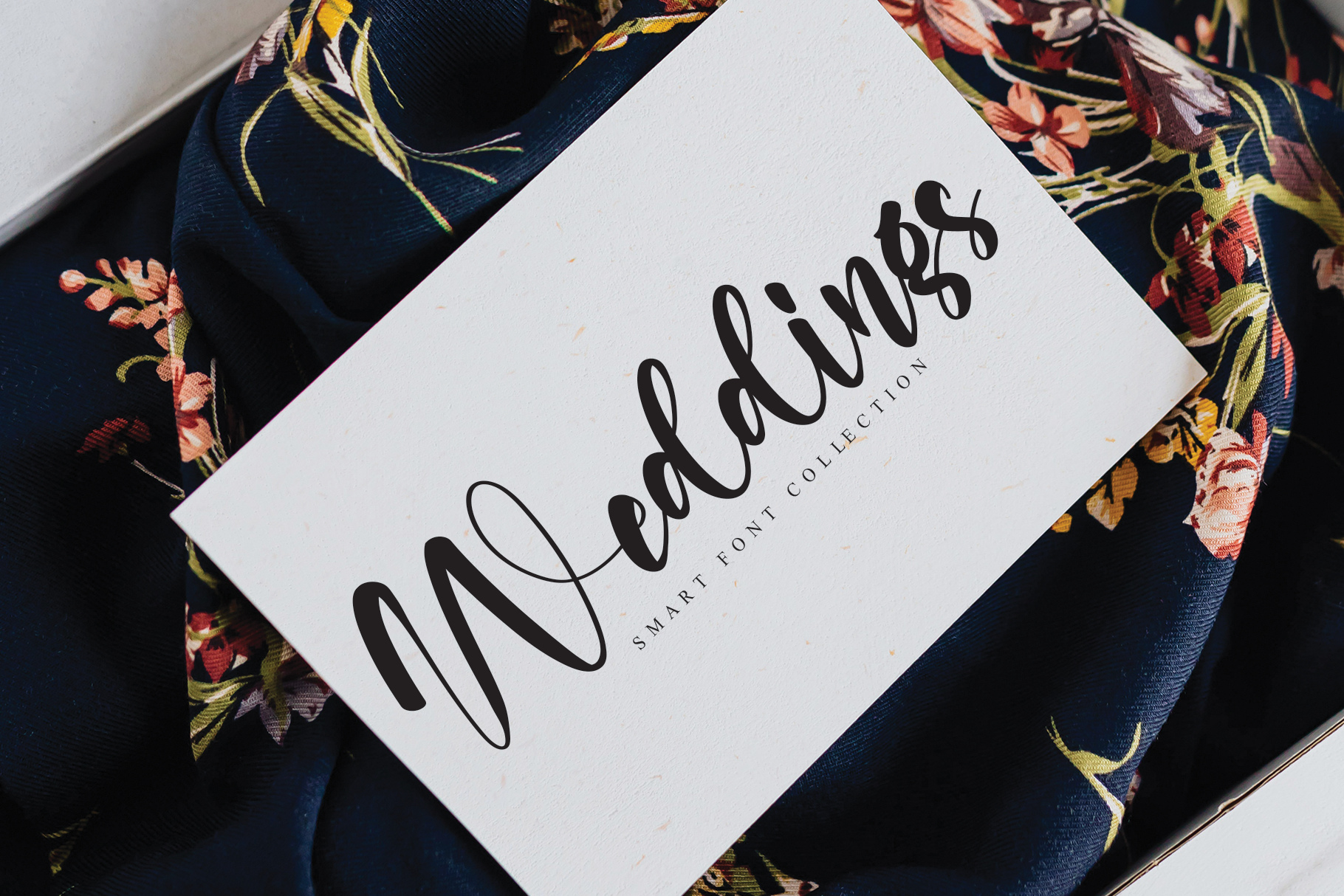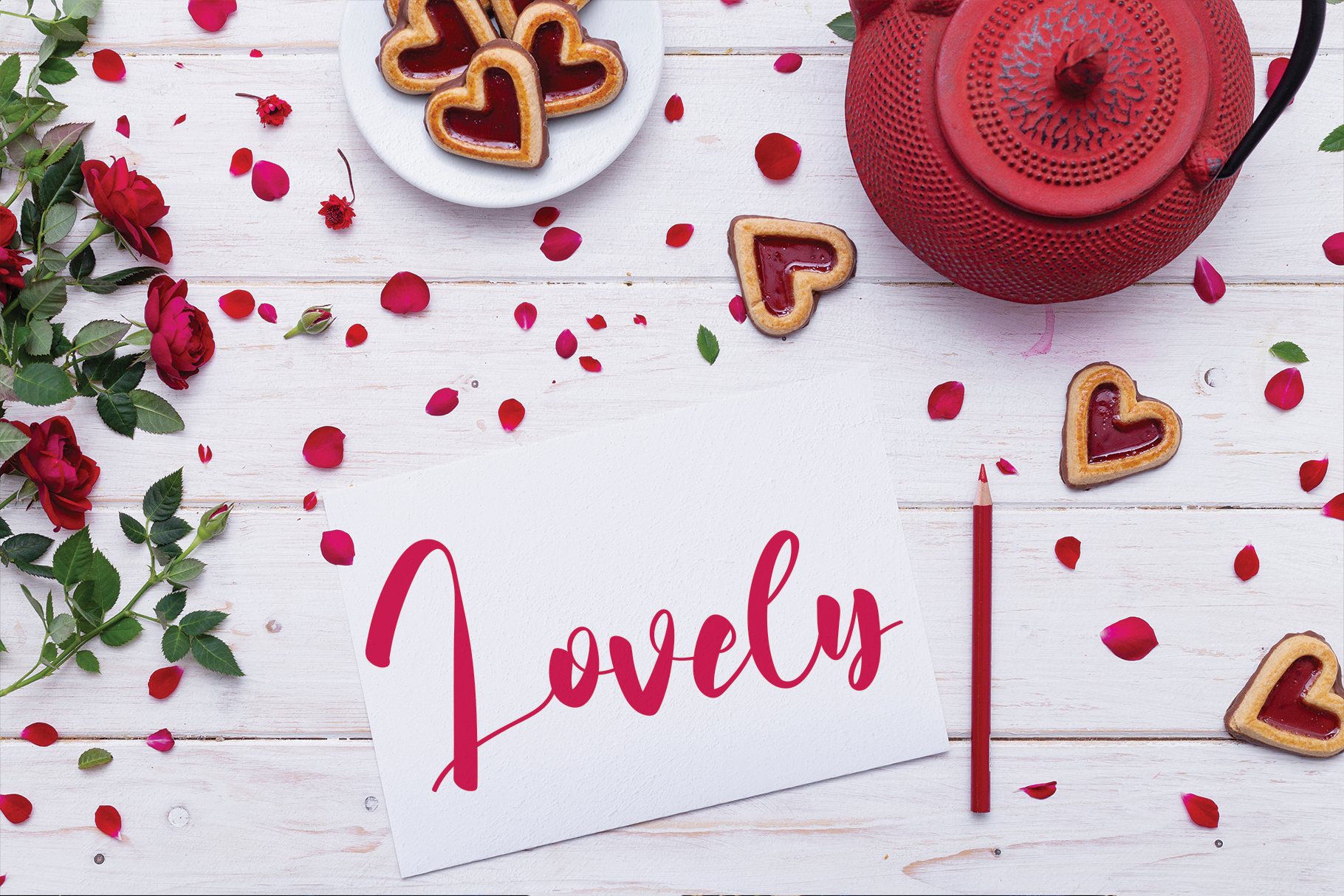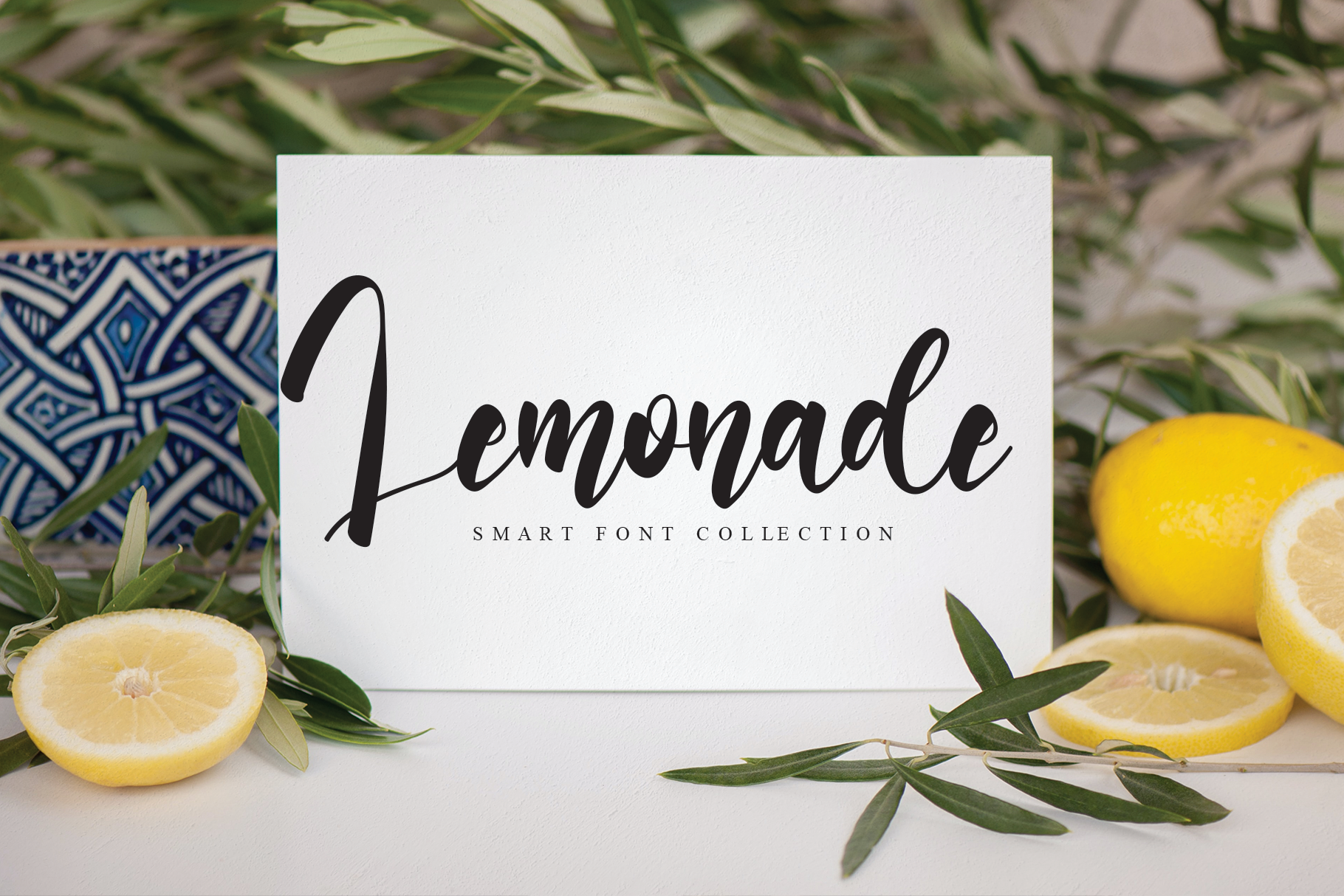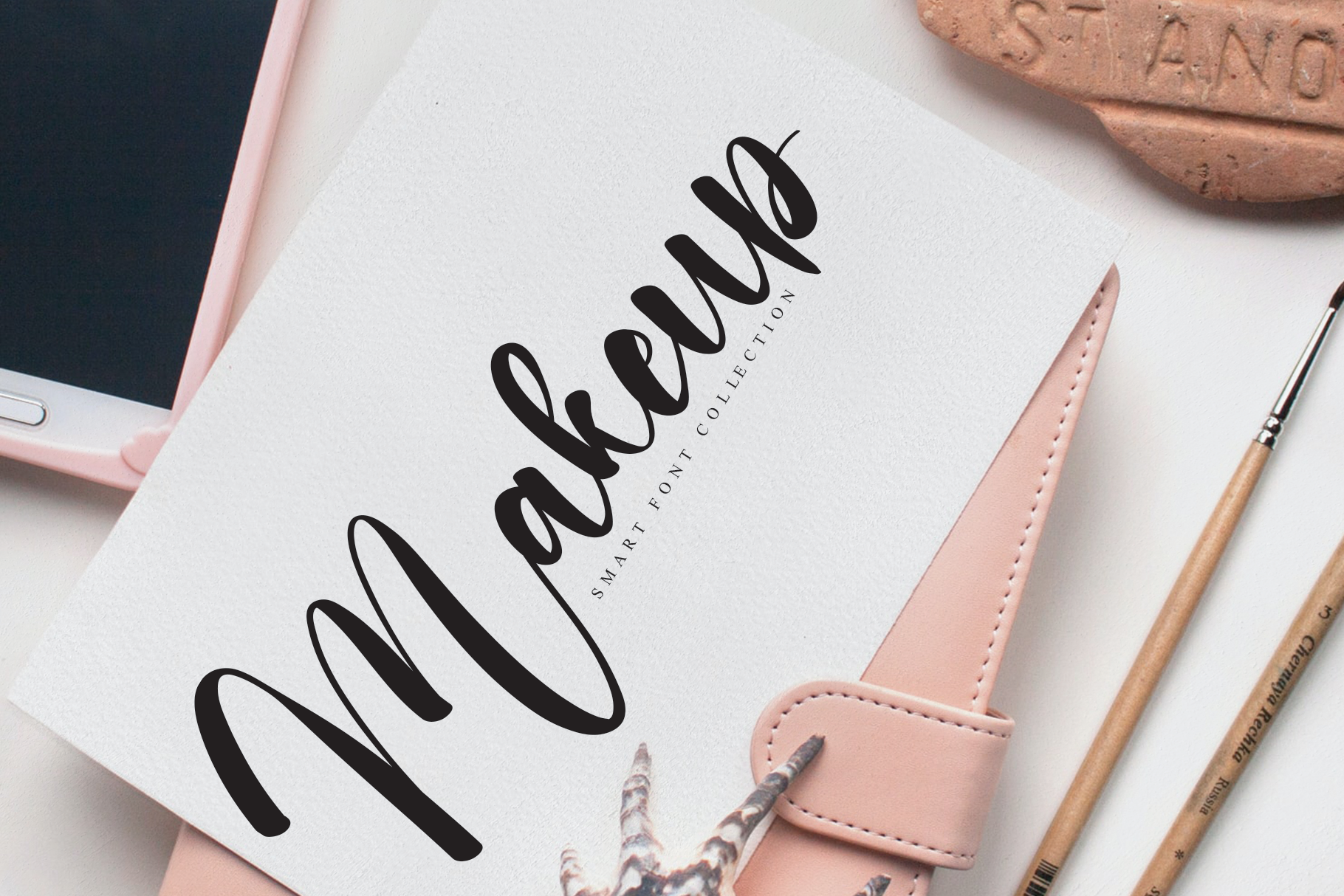
Downright Script Font
This is a classic handwritten font. This versatile script font has a wide range of applications ranging from greeting cards to kids’ crafts, and is guaranteed to add a sweet touch to your next design.
the latest style letters are perfect for wall displays, wedding invitations, social media post logos, advertisements, product packaging, product designs, labels, photography, watermarks, invitations, stationery, and any project that requires taste handwriting.